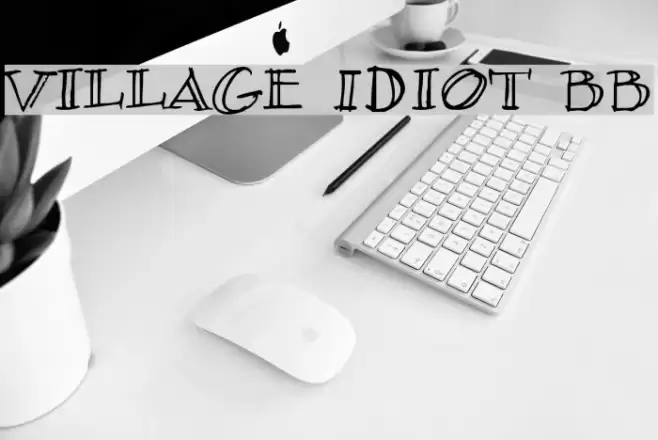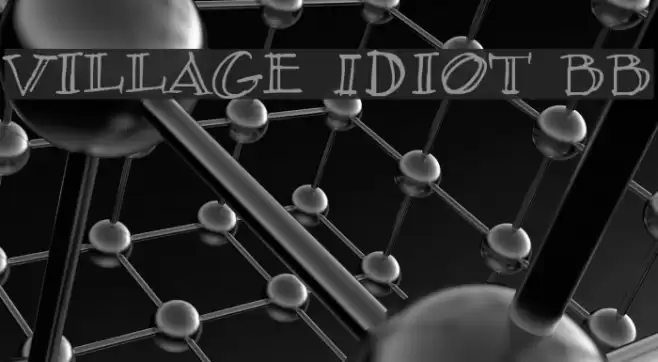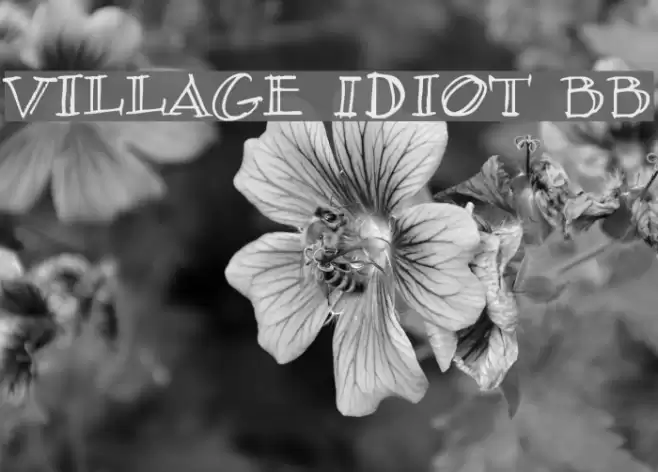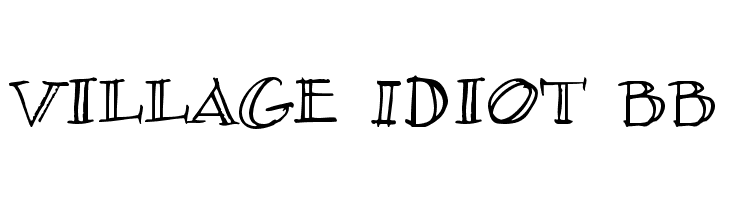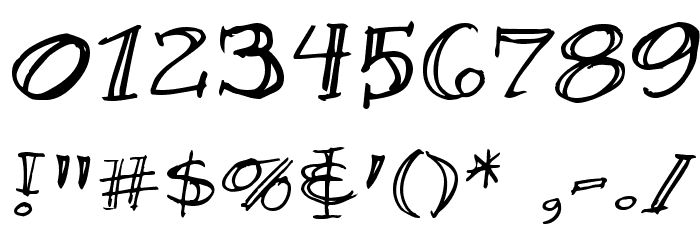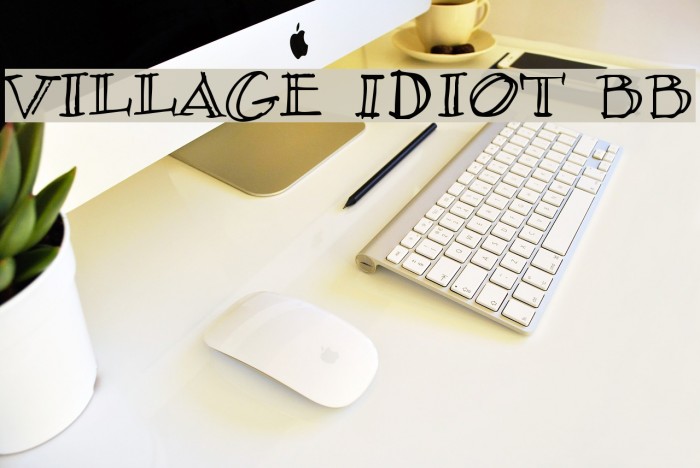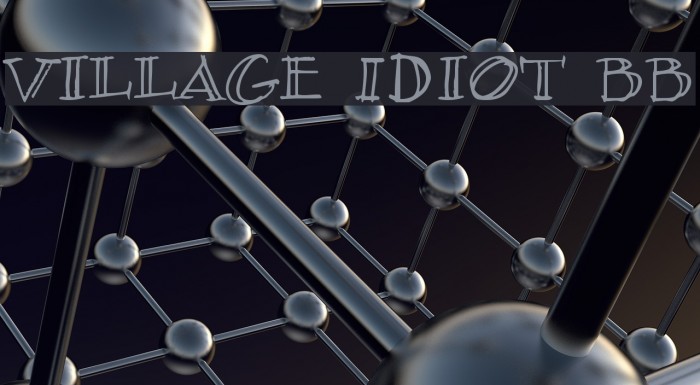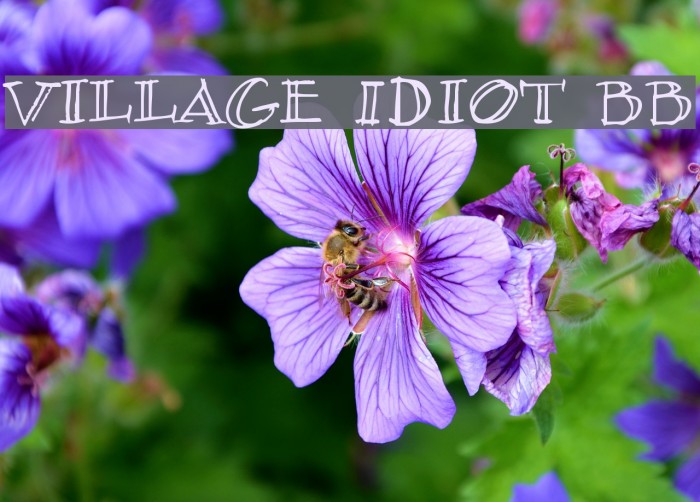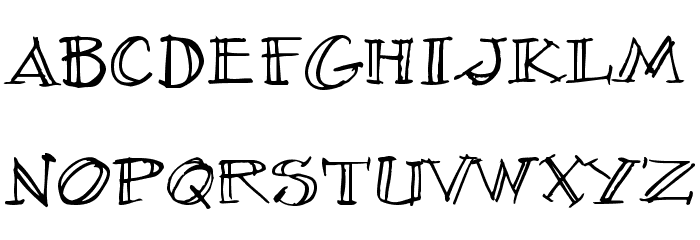
Village Idiot BB Font
Village Idiot BB Description
This font features a playful and whimsical design with a hand-drawn appearance. The characters are irregular and slightly tilted, giving them a dynamic and energetic feel. The strokes are uneven, with some parts thicker than others, adding to the casual and informal style. The overall look is reminiscent of doodles or sketches, making it suitable for creative and fun projects. The font includes a full set of uppercase and lowercase letters, numbers, and a variety of special characters, all maintaining the same quirky aesthetic.
A playful, hand-drawn font with a whimsical and dynamic style from Uncategorized fonts.
- Proposed Projects: Ideal for children's books, comic strips, playful branding, and creative posters.
- Overall Style: Whimsical
- Use Case: Headlines, Logos, Creative Projects